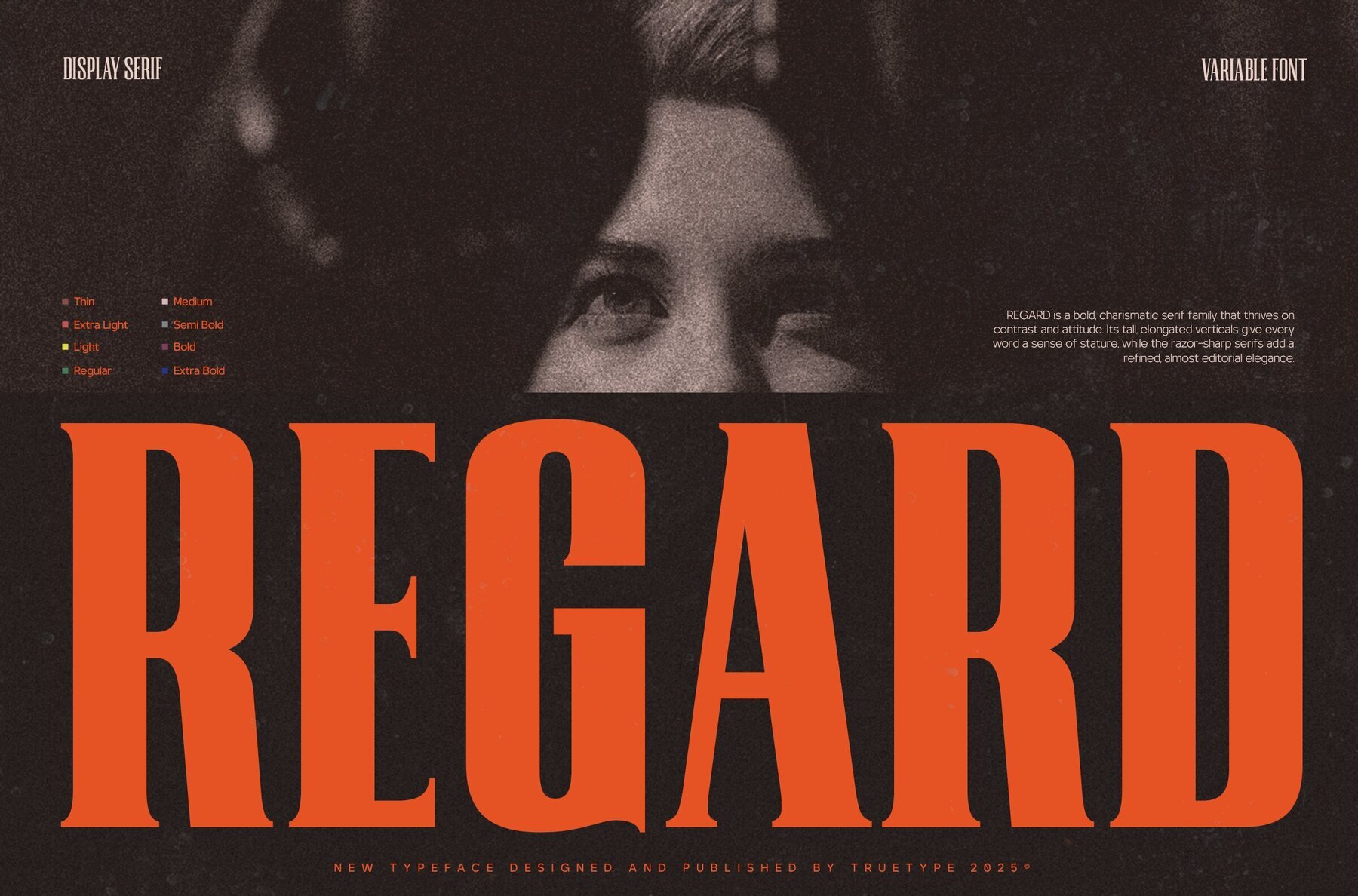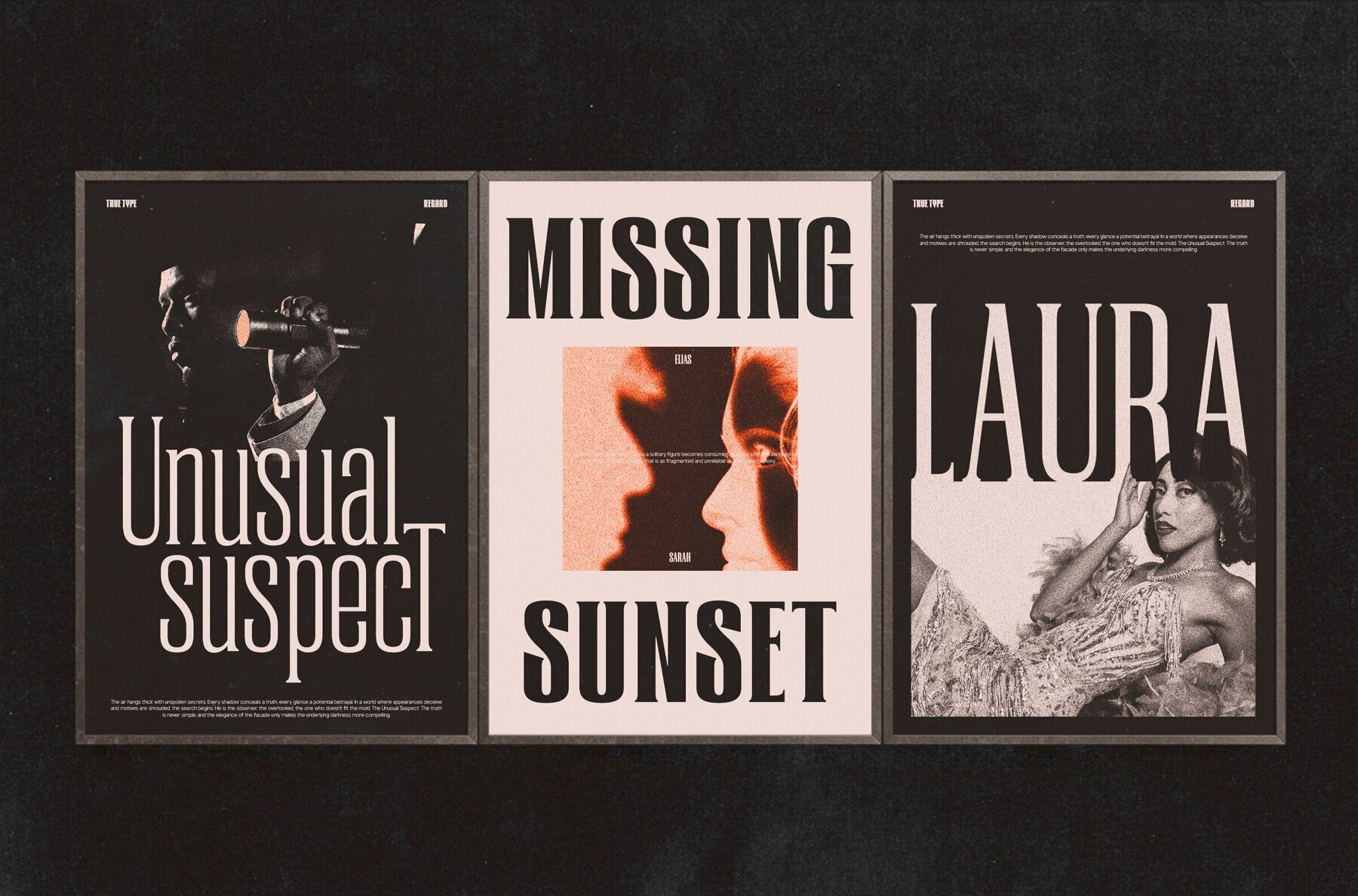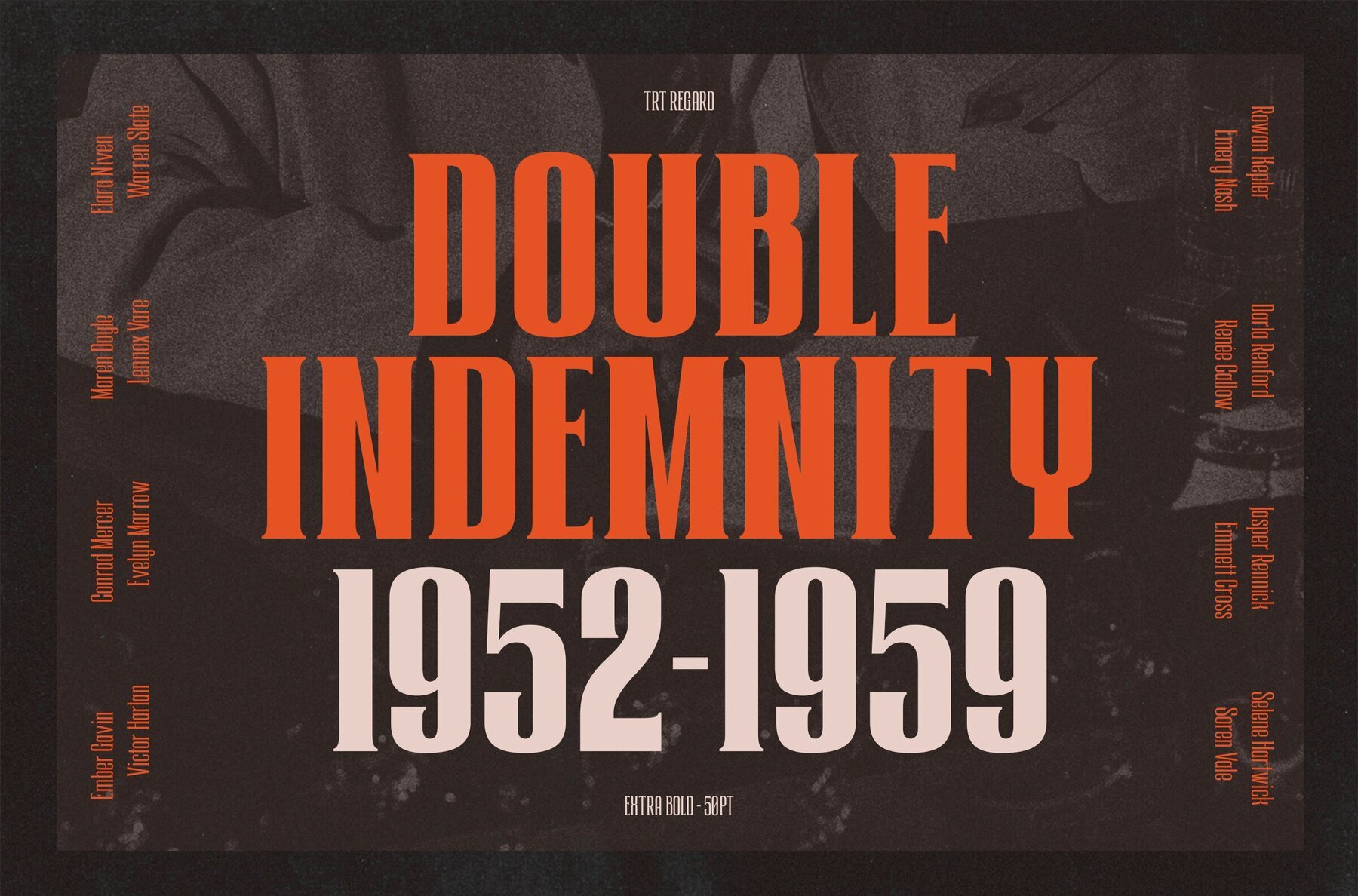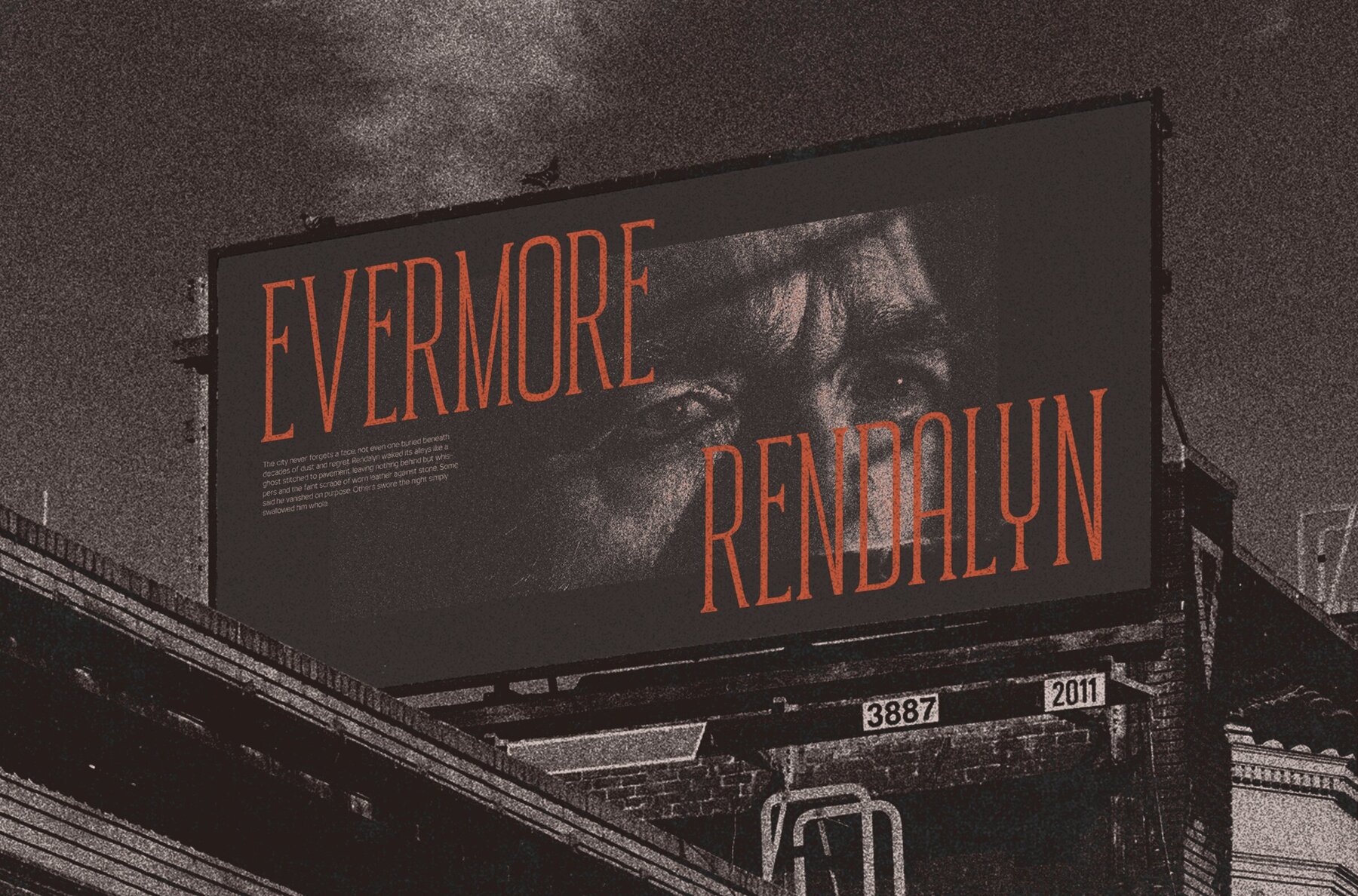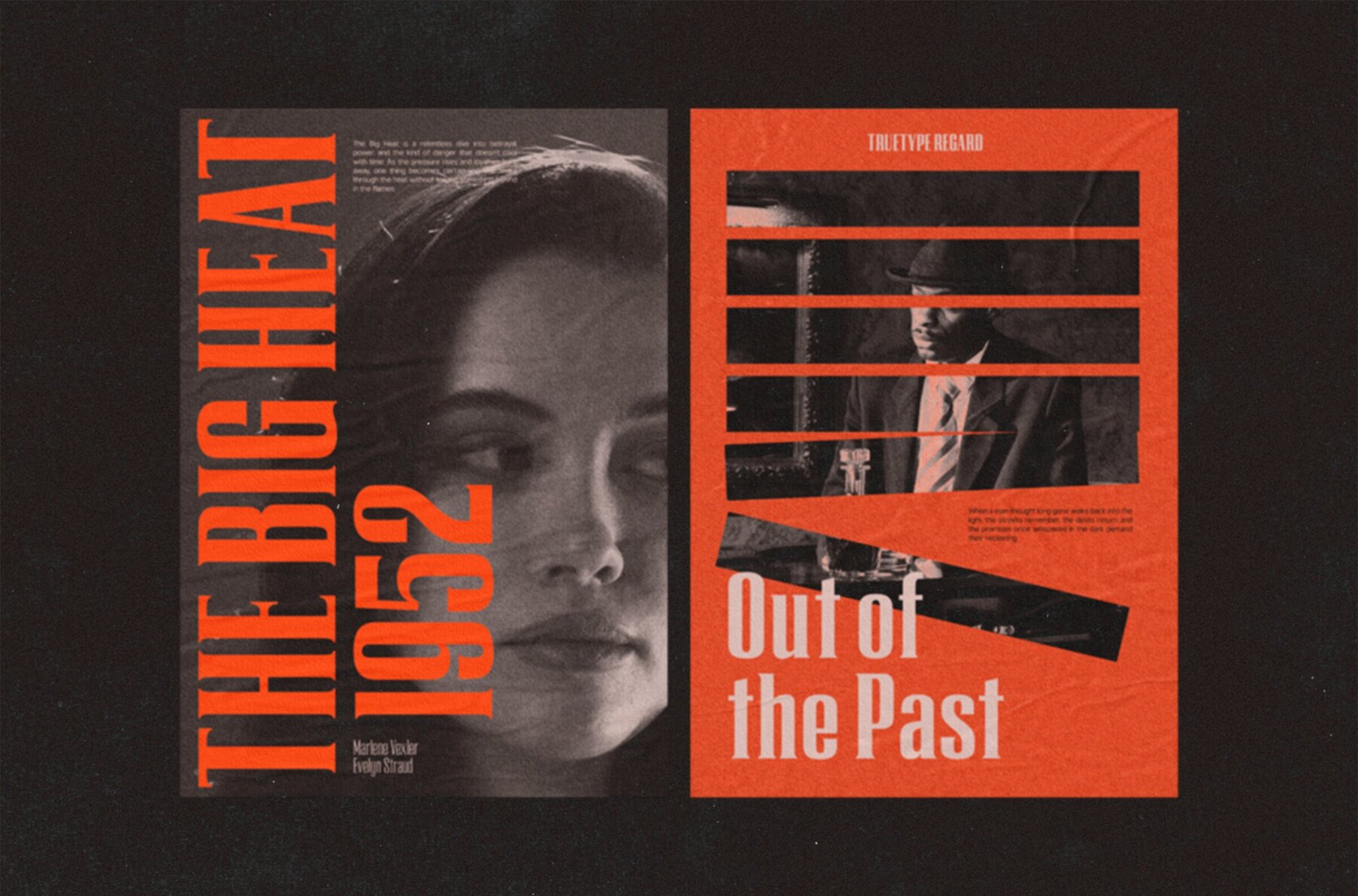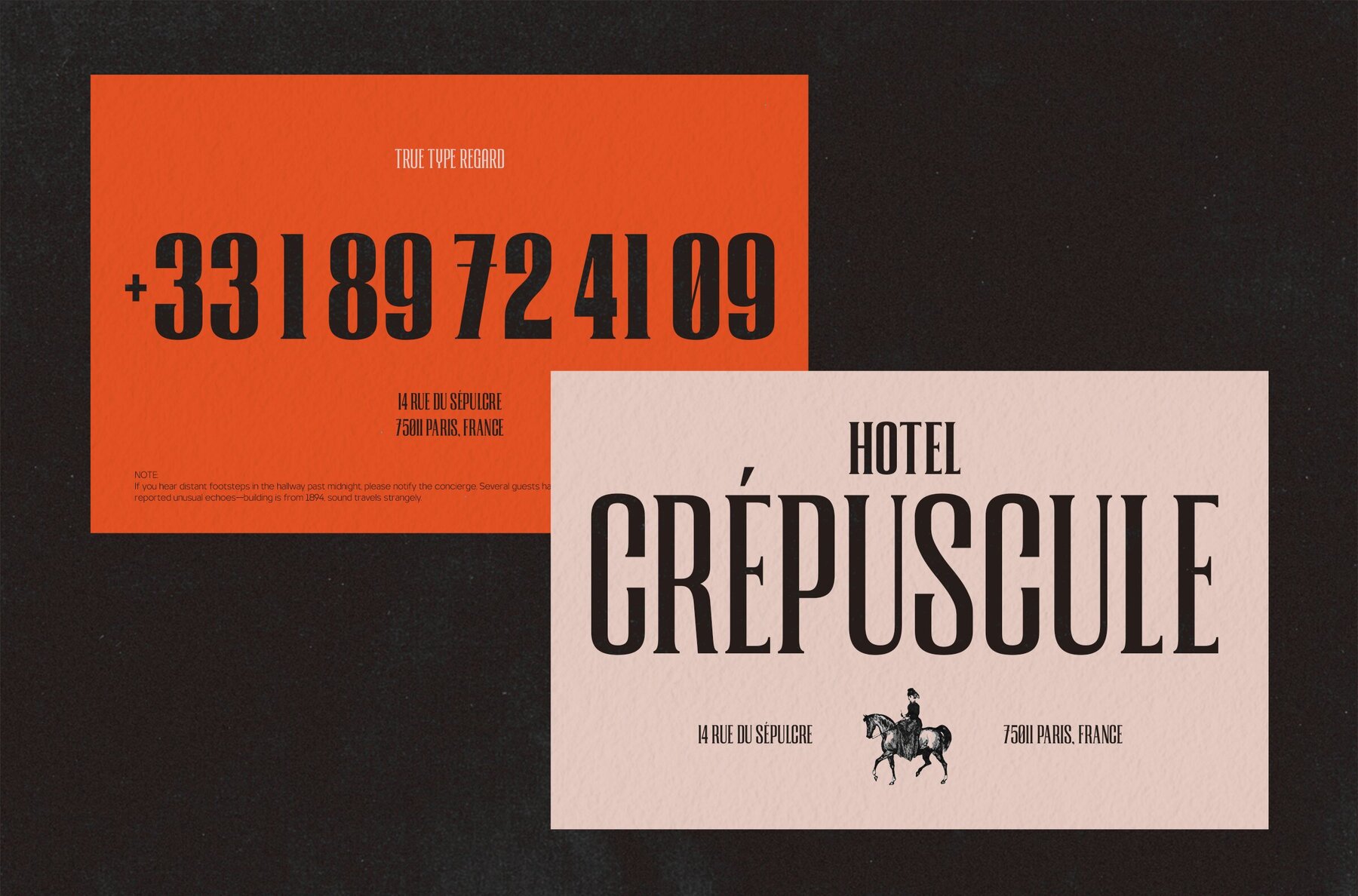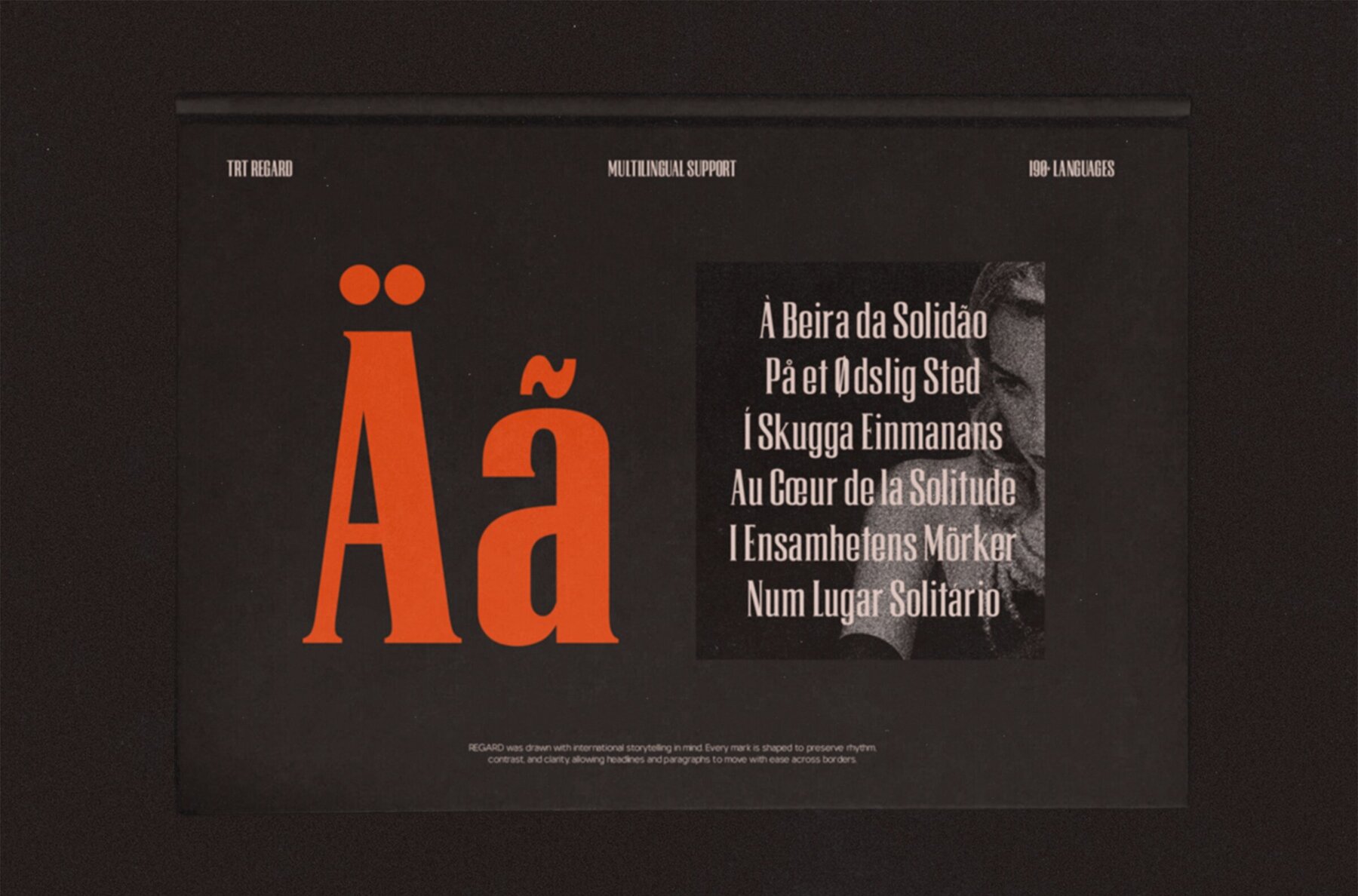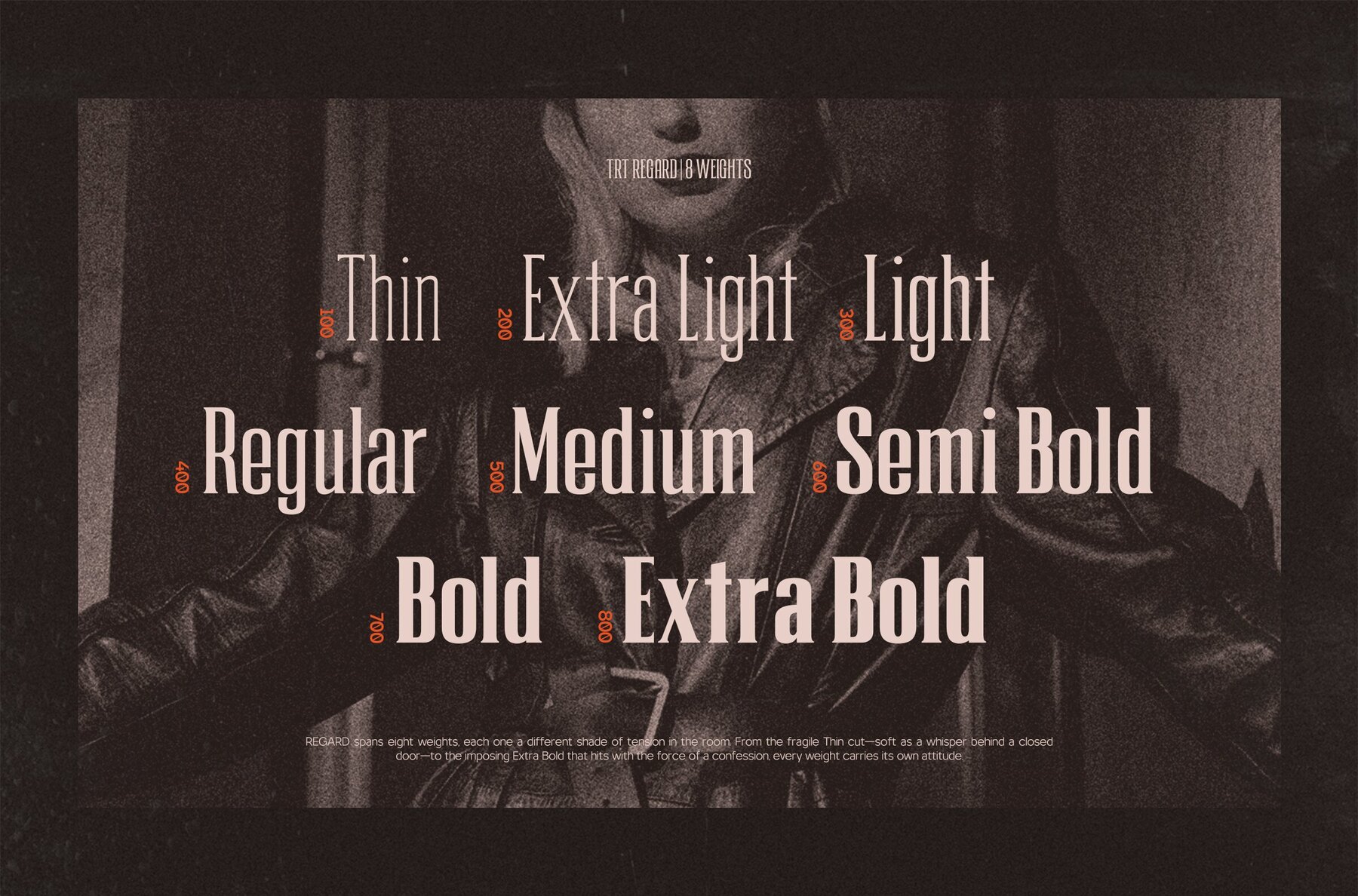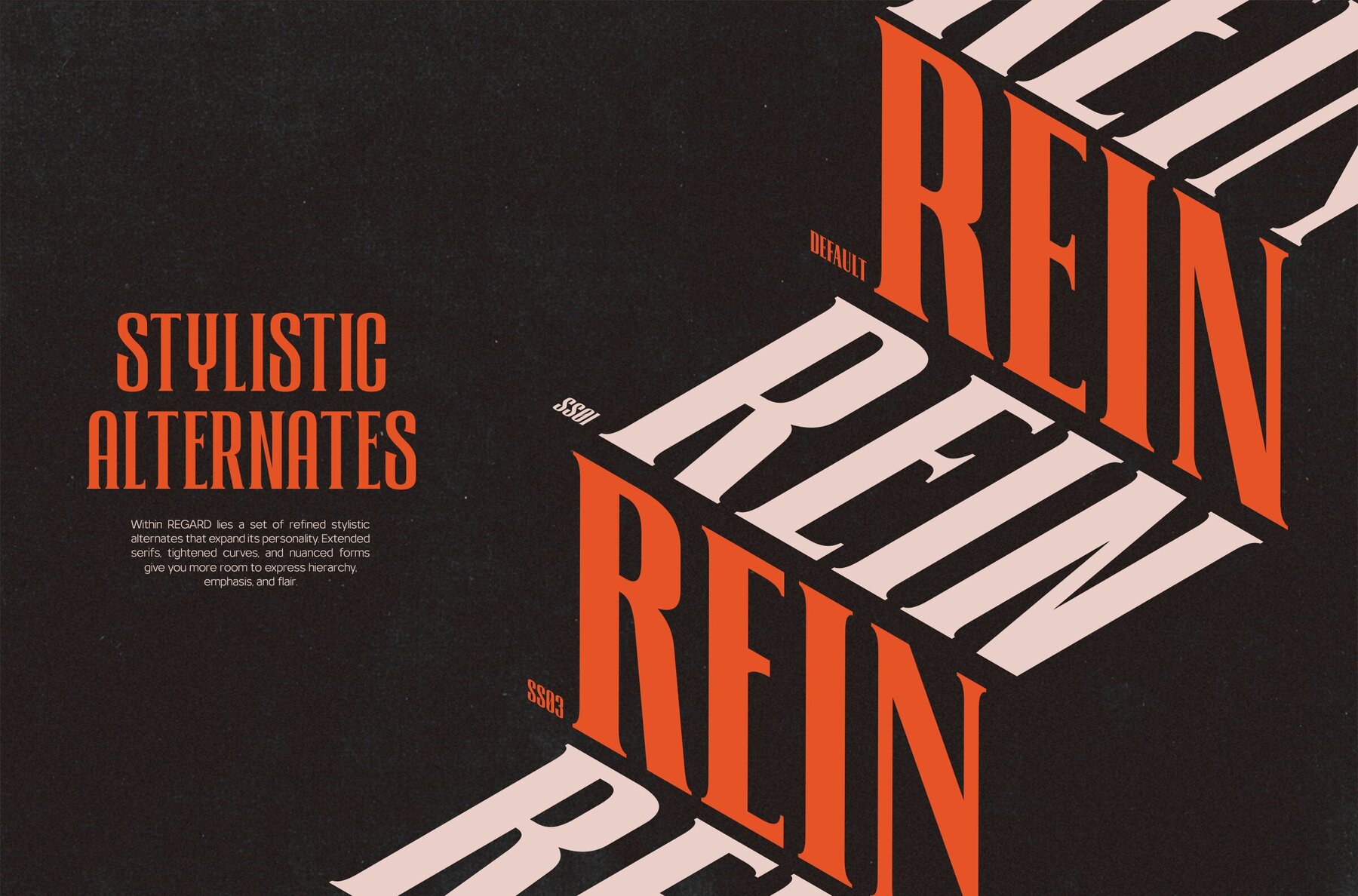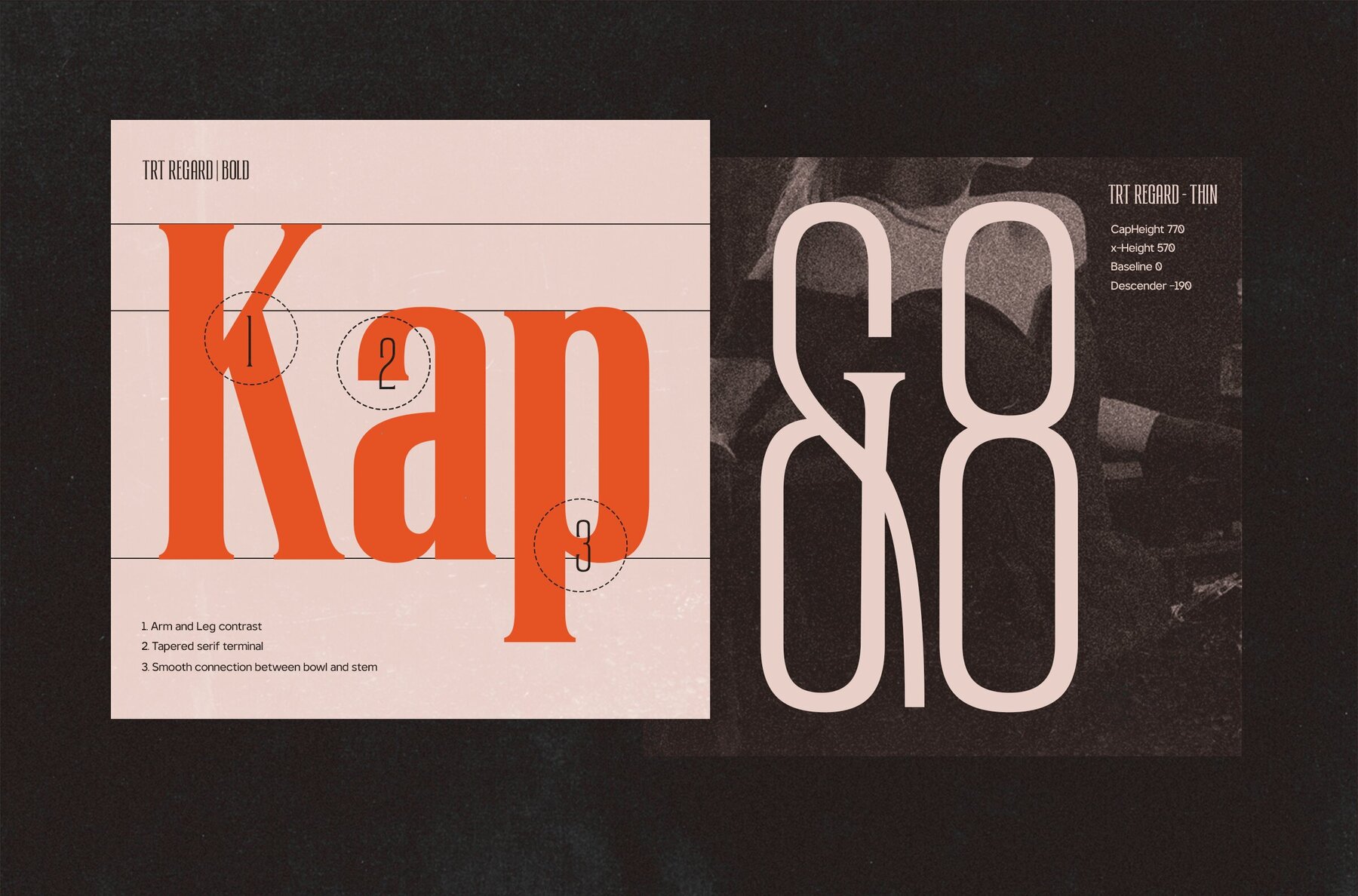
TRT Regard Font
TRT Regard Condensed is a sans serif display font defined by its tall proportions, condensed structure, and sharp visual rhythm. Designed to command attention, its clean verticals and tight curves offer both intensity and a refined elegance, making it suited for projects where visual authority is required. This typeface works seamlessly across a range of applications, lending clarity and sophistication to posters, logos, headlines, and bold branding work. The condensed letterforms support compact layouts without sacrificing legibility, ensuring that communication remains direct and effective. With a design language that balances strength and subtlety, TRT Regard Condensed adapts well to creative industries including fashion, music, media, and culture. Its bold presence communicates confidence without resorting to excess, establishing a visual tone that is purposeful yet approachable.TRT Regard Condensed: Impactful Sans Serif Display Typeface